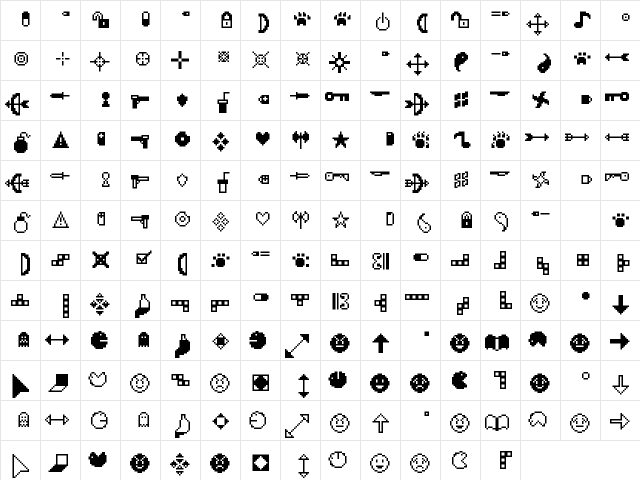
WolveSymbol Medium
Design Context for WolveSymbol Typeface
WolveSymbol takes a measured approach to typography — its balanced proportions and neutral character make it a reliable workhorse for both digital and print work.